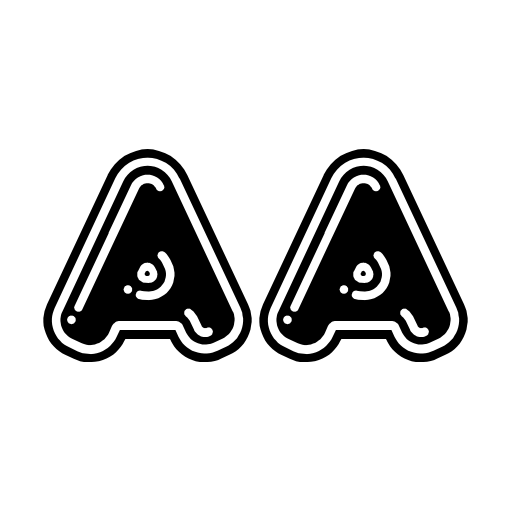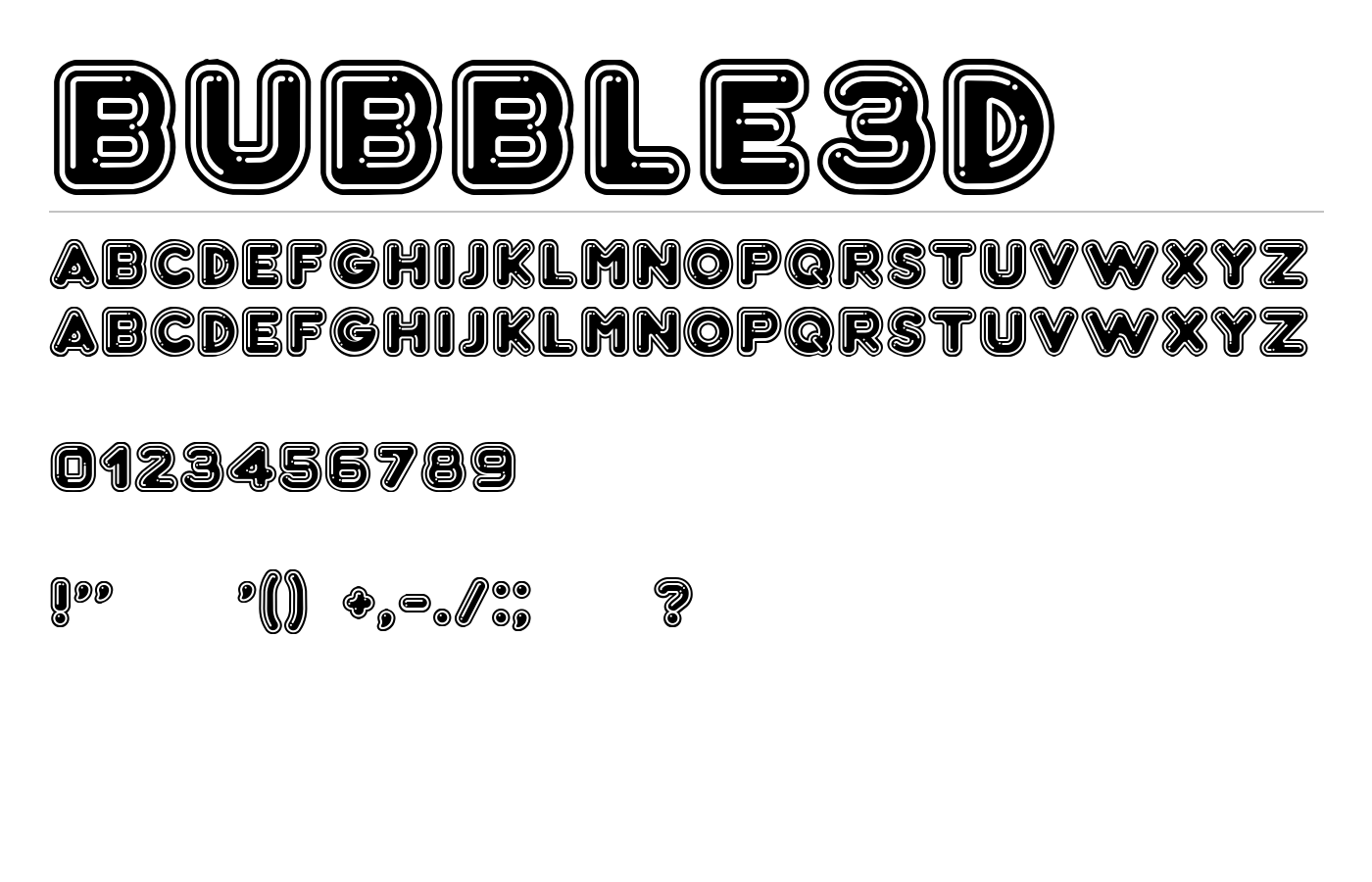
Bubble3D is a bold, playful sans serif font characterized by its rounded, bubble-like letterforms and layered 3D outline effect that gives it a dynamic, fun appearance. With its generous spacing, simple geometric shapes, and uppercase-only style, it works great for eye-catching headlines, logos, and designs aimed at a youthful or creative audience. This font’s energetic, modern vibe makes it perfect for projects needing a lighthearted, approachable personality.
Bubble3D Font
About Bubble3D Font
| Font family | Bubble3D Font |